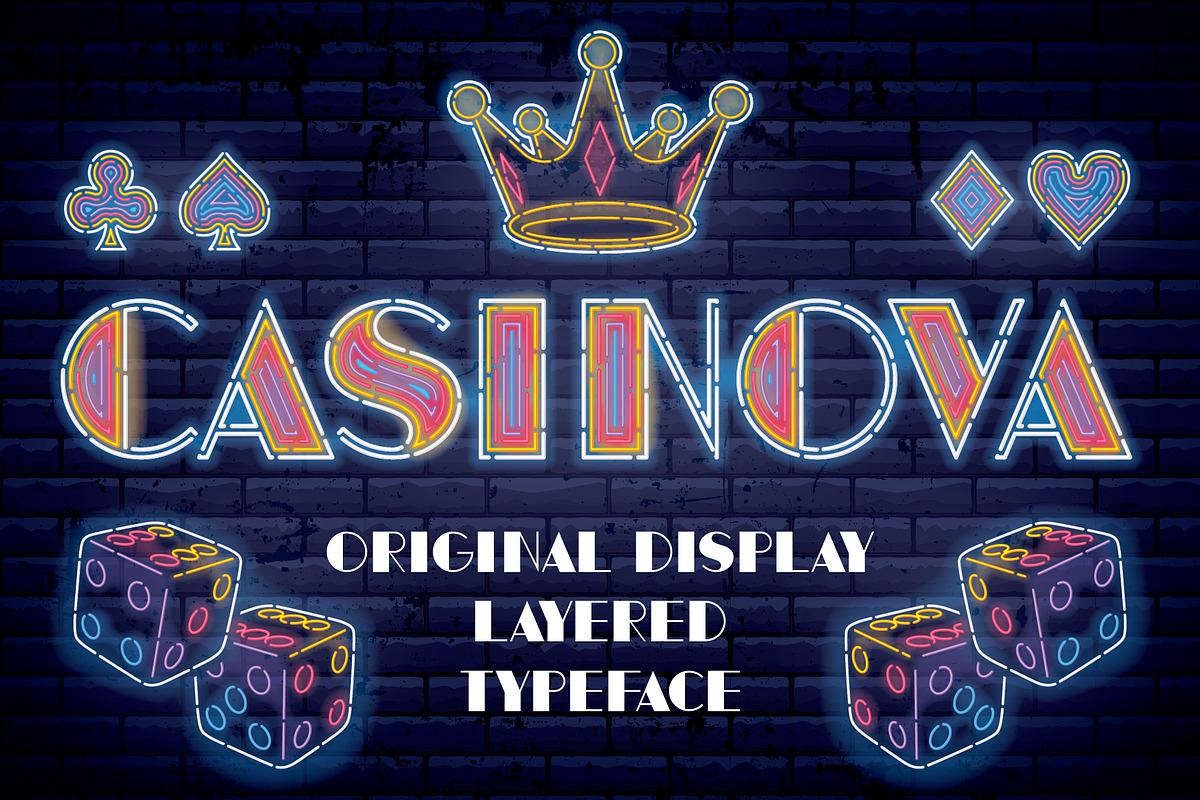
Casinova Layered Font Free Download is a bold and luxurious typeface inspired by vintage casinos, neon lights, and high-roller glam. With its layered design and retro appeal, this font is perfect for signage, game night posters, bar menus, Las Vegas–style branding, and anything that demands attention with flair.
Each layer gives you creative freedom—combine shadows, outlines, and fills for a custom look that pops off the page. Casinova’s dramatic curves and show-stopping presence make it ideal for both print and digital projects looking to make a stylish, unforgettable impression.